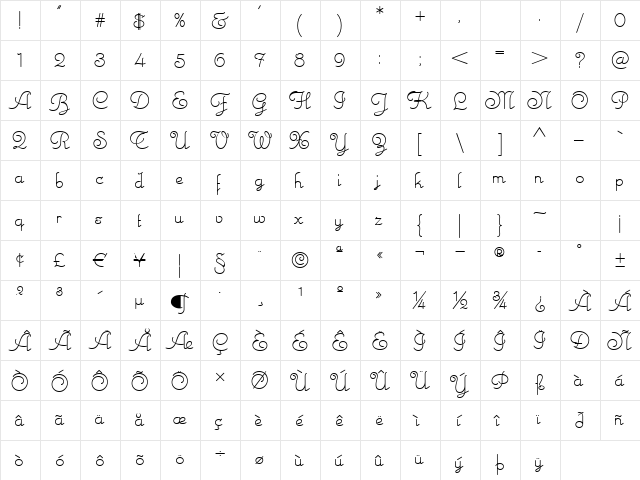
MonteCarloScriptNF Regular
| Foundry | Nick's Fonts |
| Designer | Nick Curtis |
Design Context for MonteCarloScriptNF Typeface
MonteCarloScriptNF flows with the natural rhythm of handwritten lettering, making it ideal for designs that call for warmth and personal expression.
Font Pairing: Combine MonteCarloScriptNF with a simple geometric sans for maximum contrast — the tension between flowing curves and clean structure is a classic typographic pairing.
Pro Tip: Use MonteCarloScriptNF for short runs of text — names, titles, or taglines. Extended body copy in script faces tires the eye quickly.